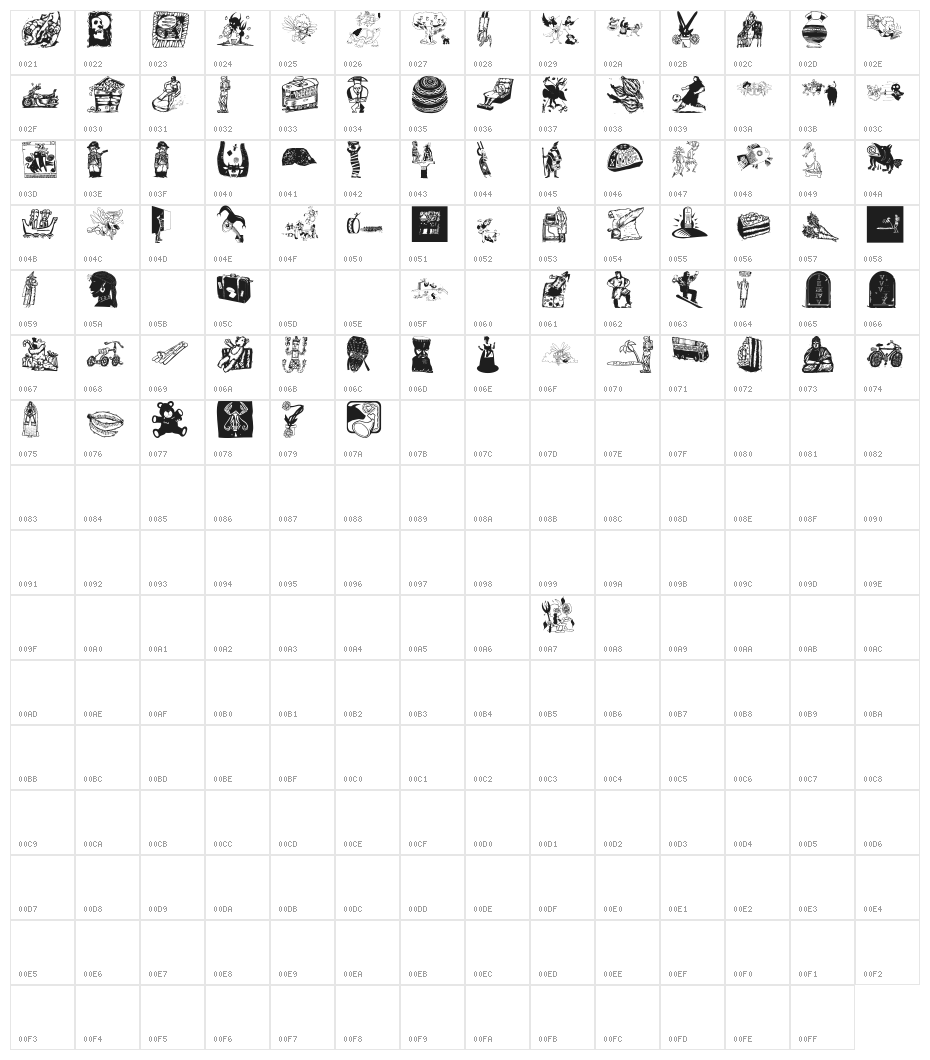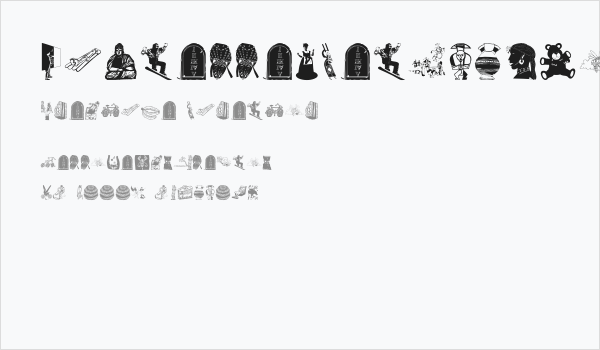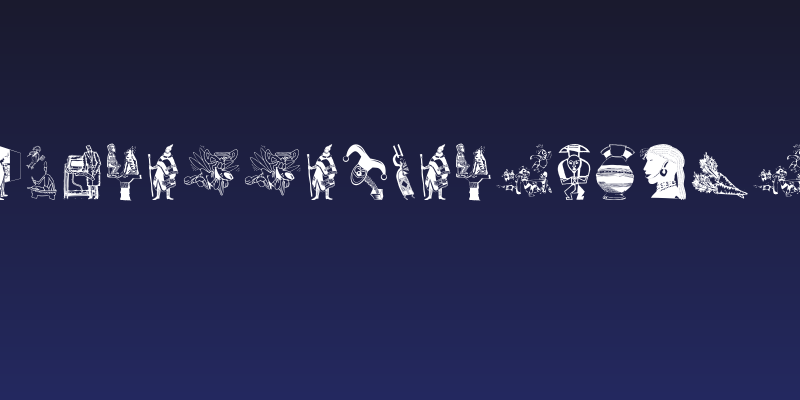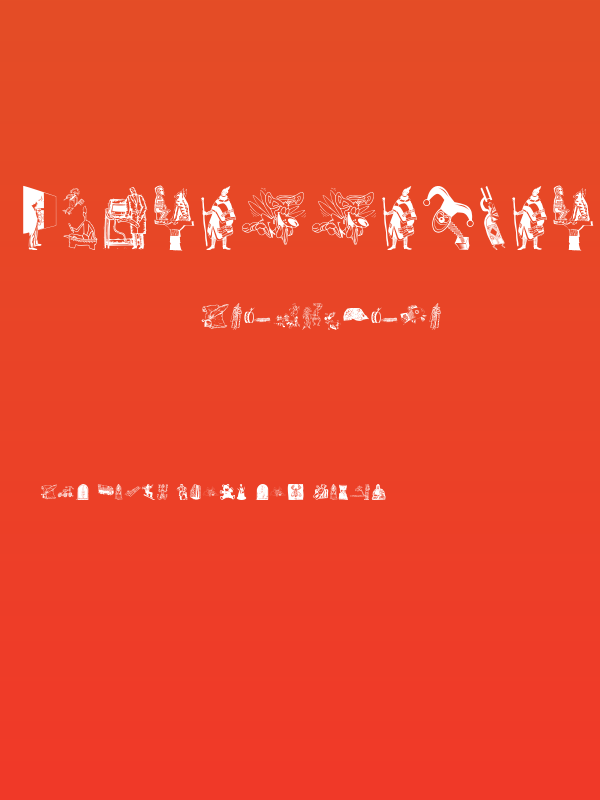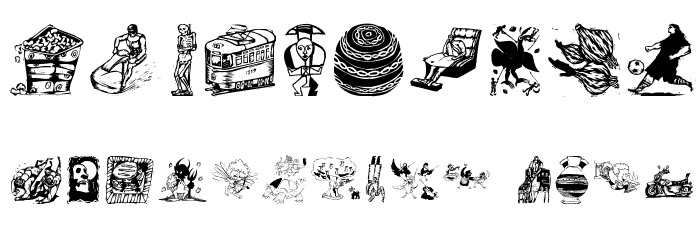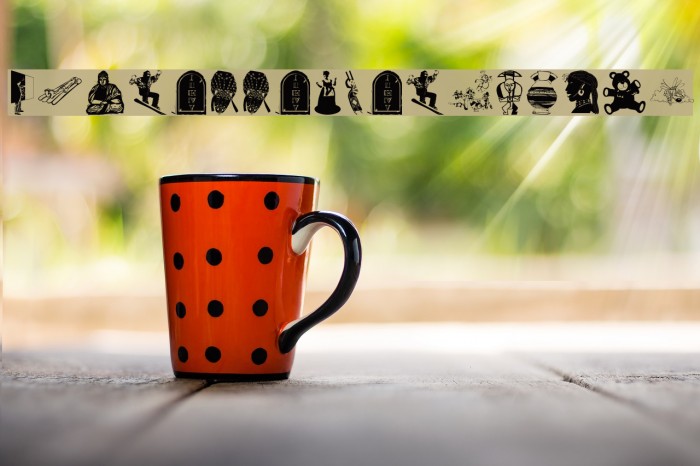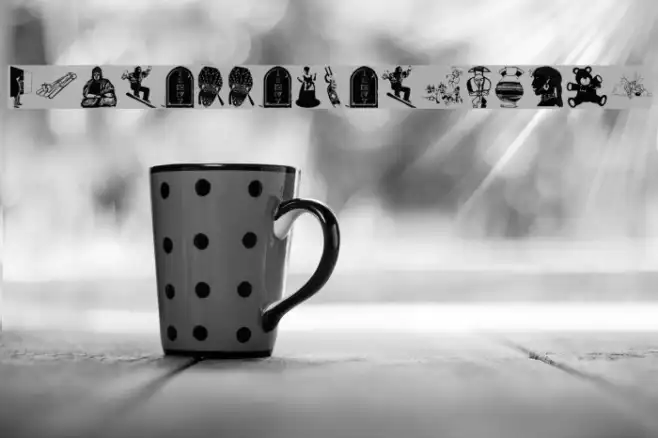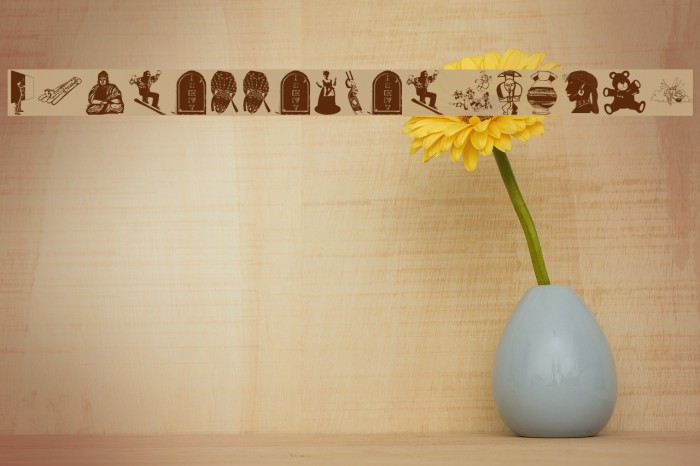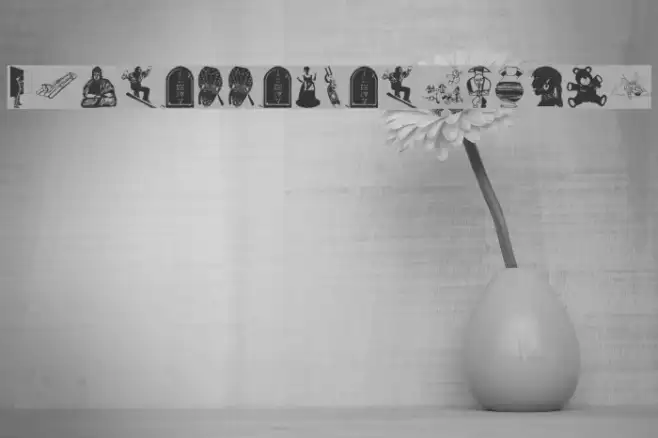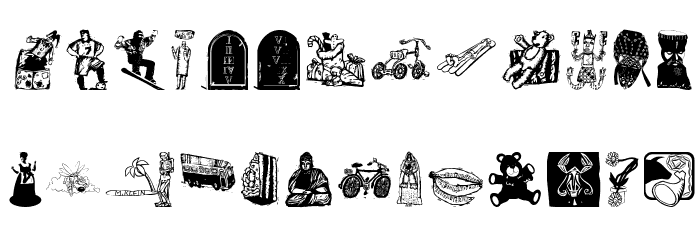
MiscellenDecO4-Zwo Font
| Stile generale | Decorative, Whimsical, Artistic |
| Caso d'uso | Illustrative headlines, creative projects, visual storytelling, thematic graphics. |
| Progetti proposti | Children's books, educational materials, creative posters, art projects, themed event invitations, visual storytelling, scrapbooking. |